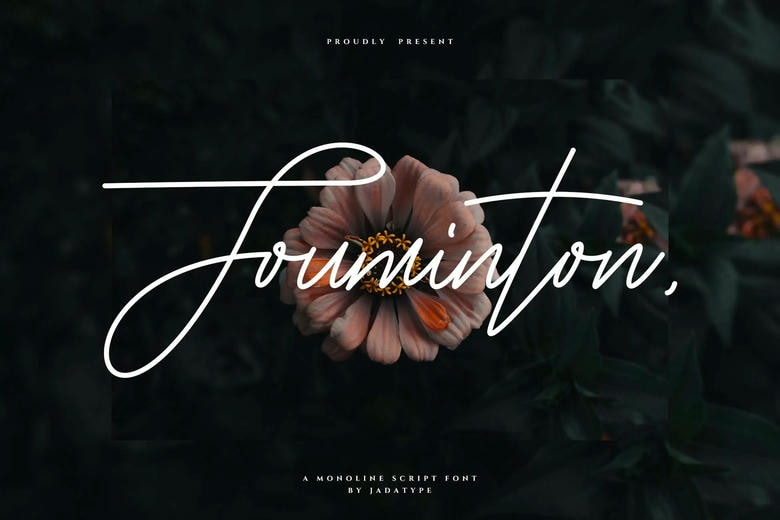
Jouminton Font
Jouminton is a monoline script with a simple and natural style font. suitable for social media, logotype, craft, advertisements, and so on. contains standard English letters, numbers, punctuation, and several accents that support multilingualism.
Jouminton Monoline Script Font